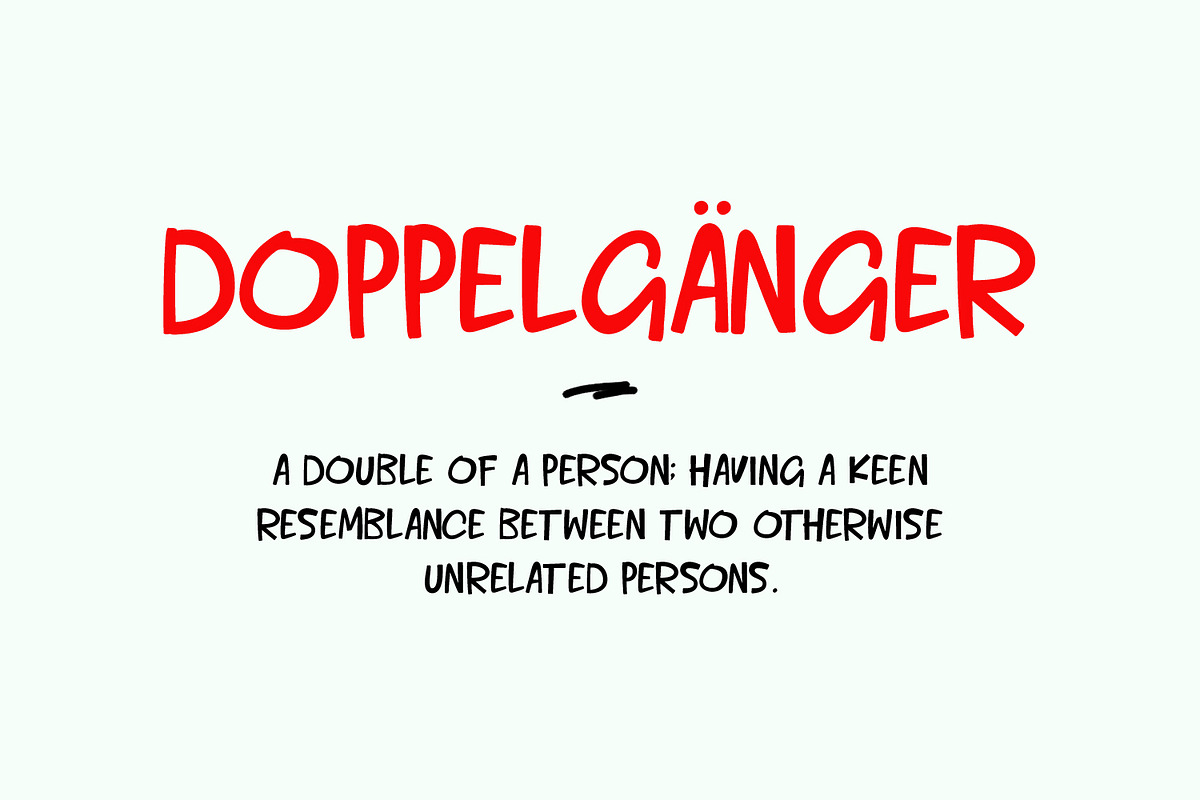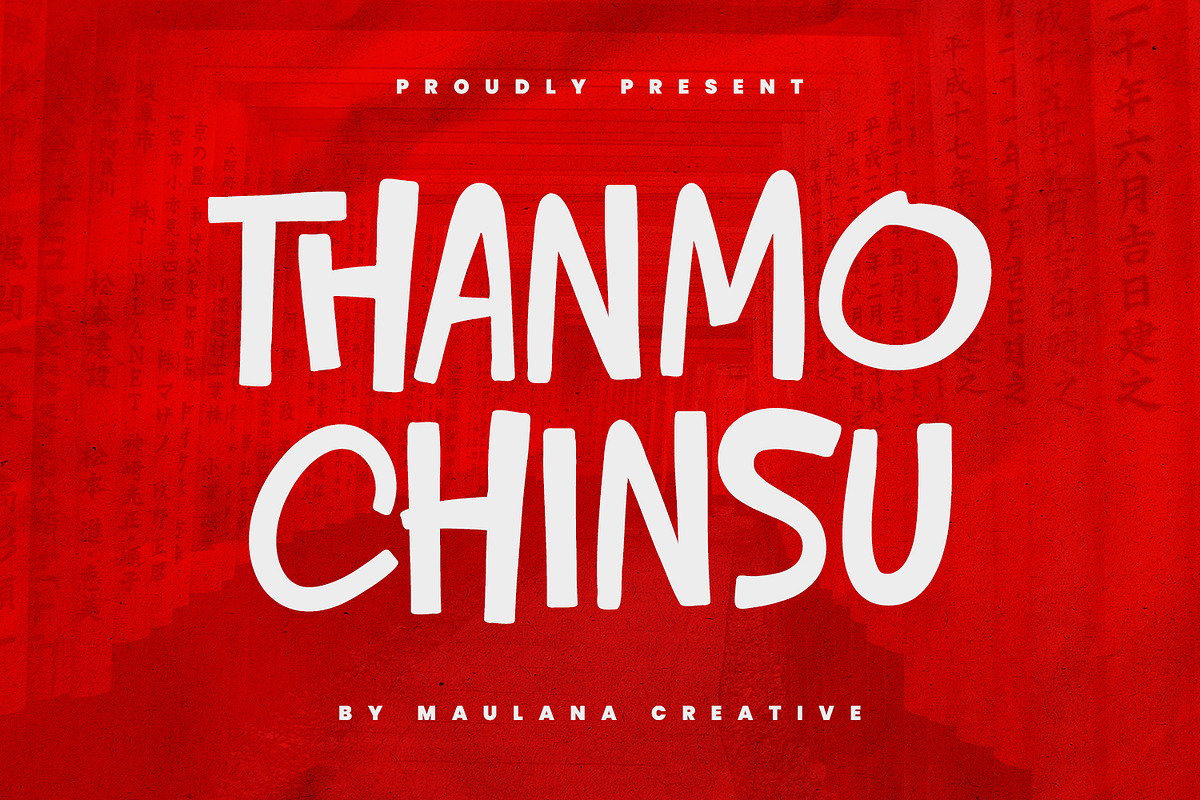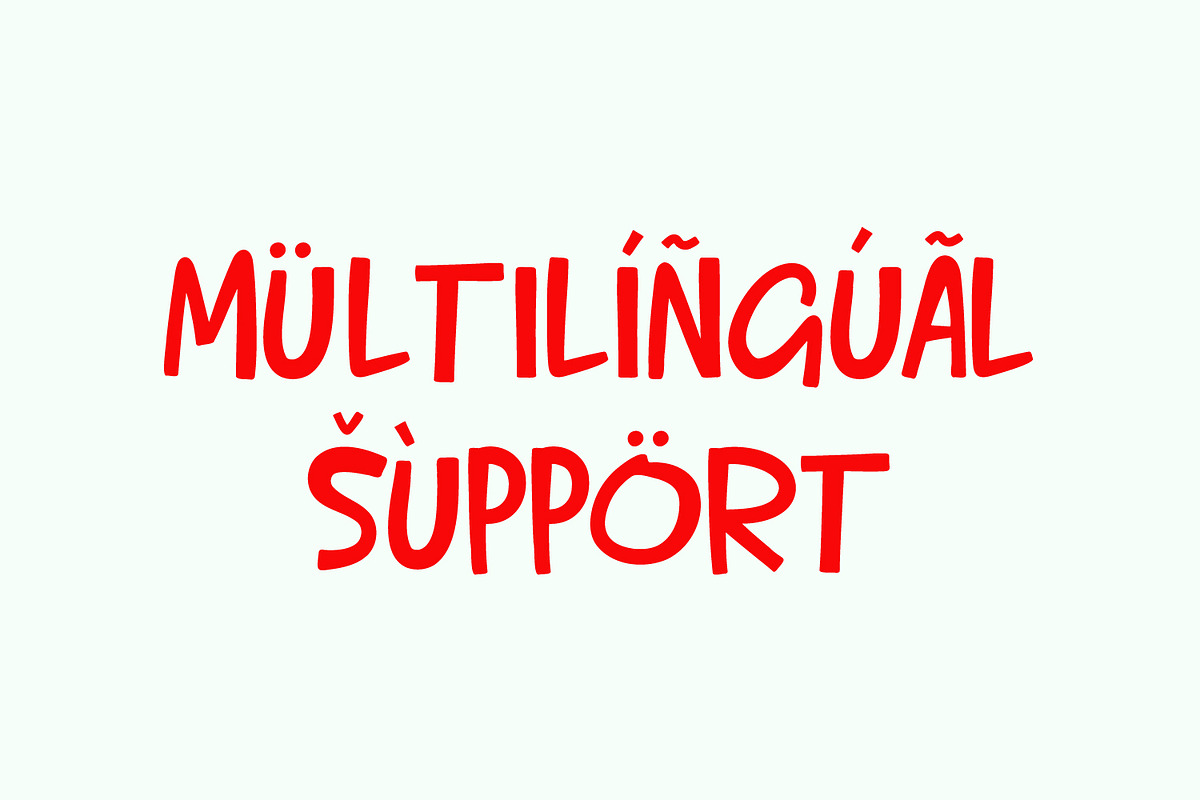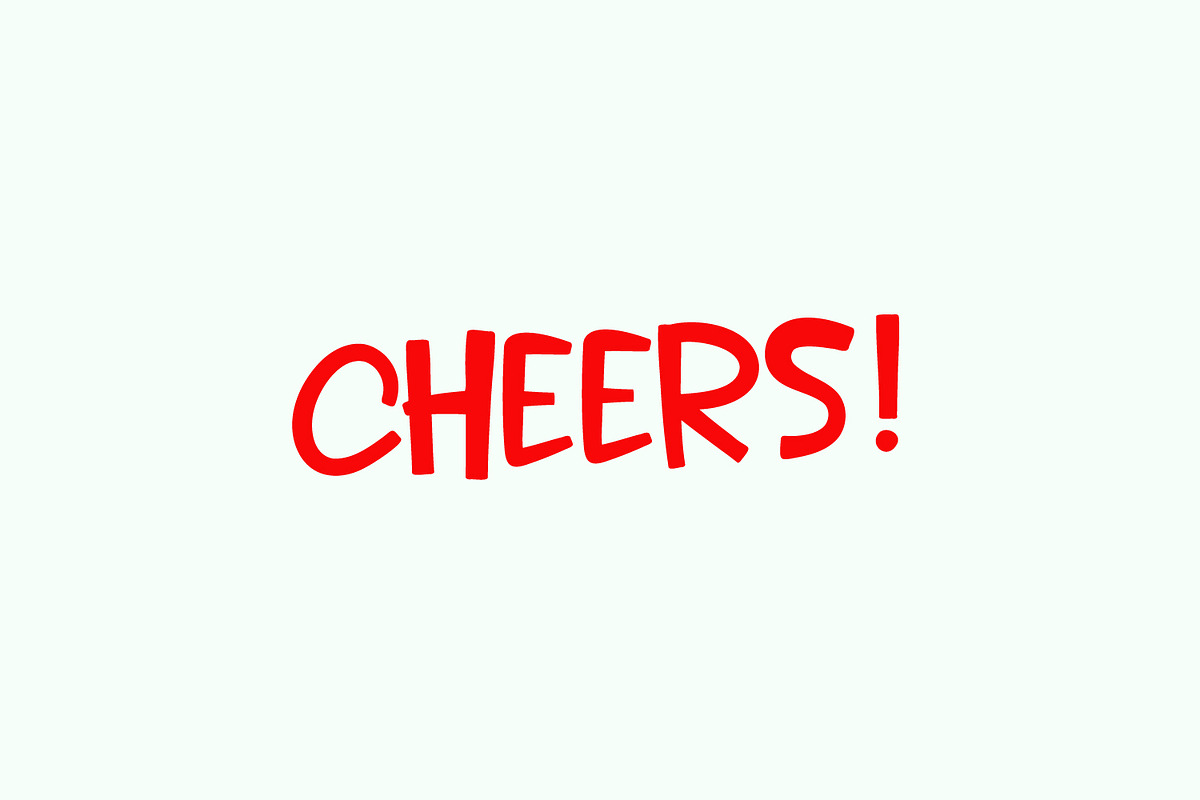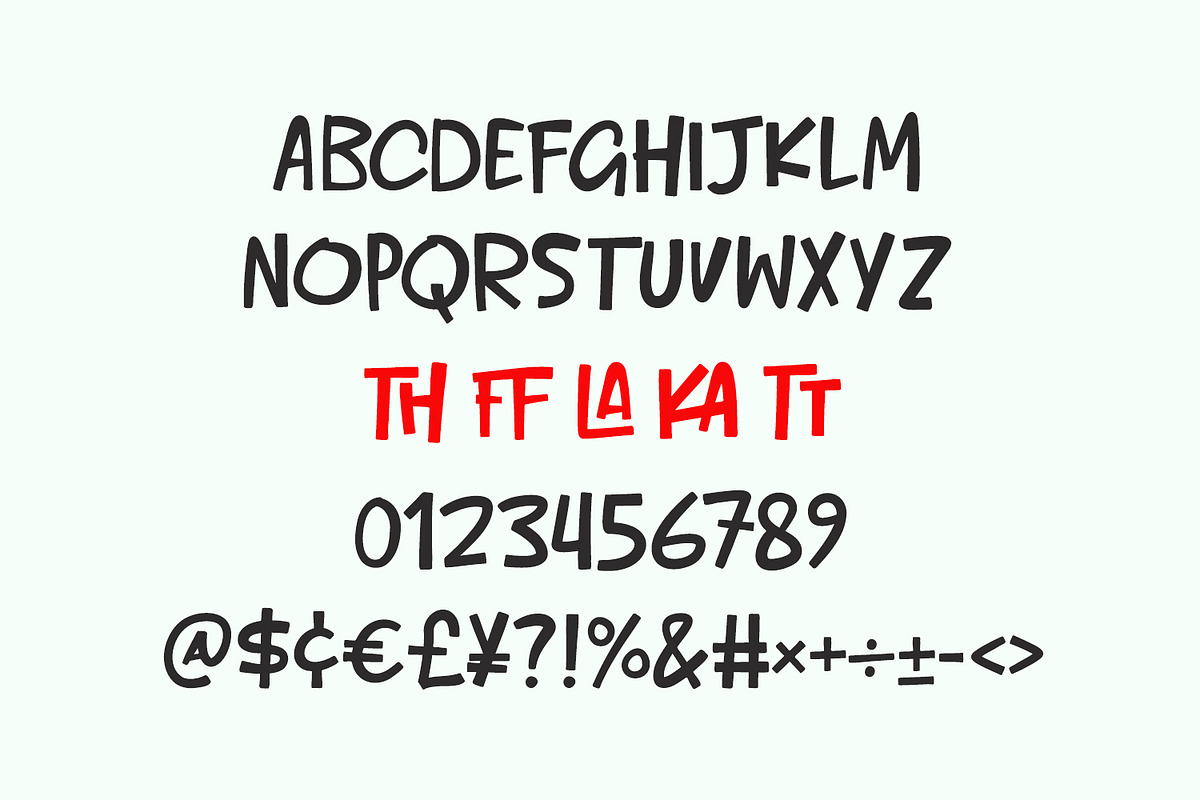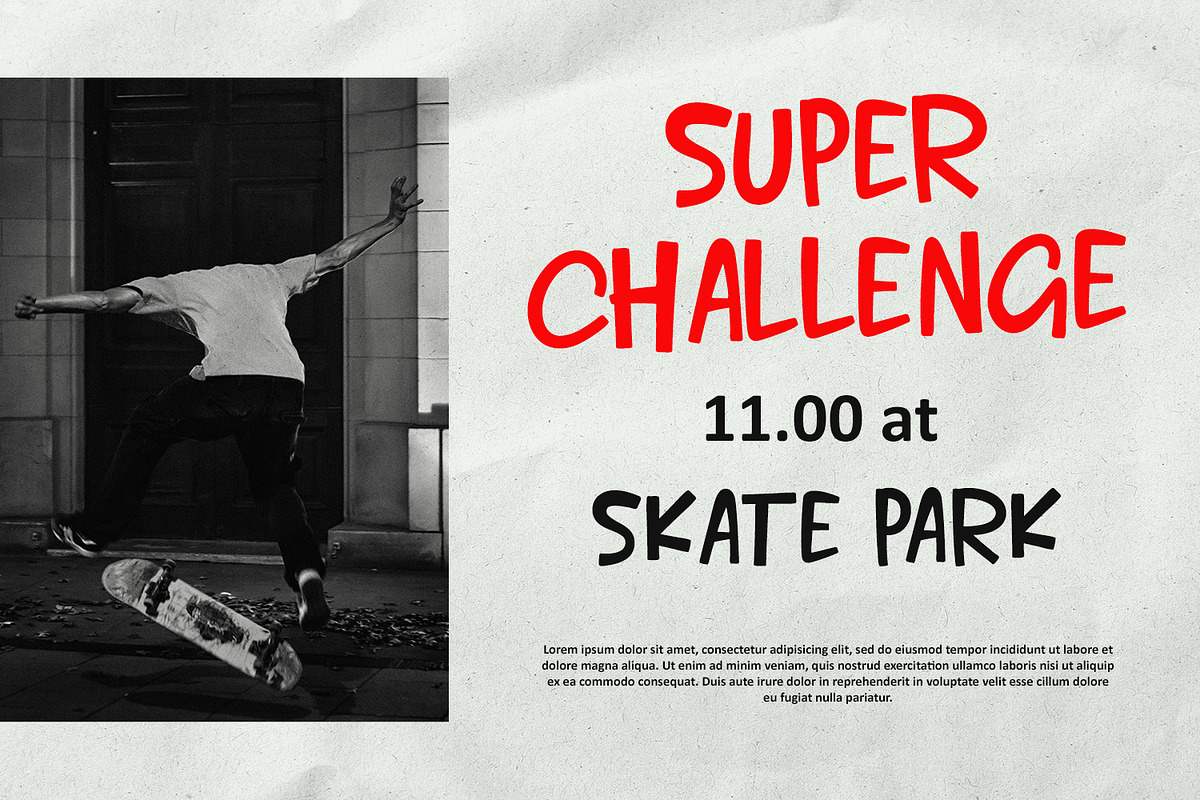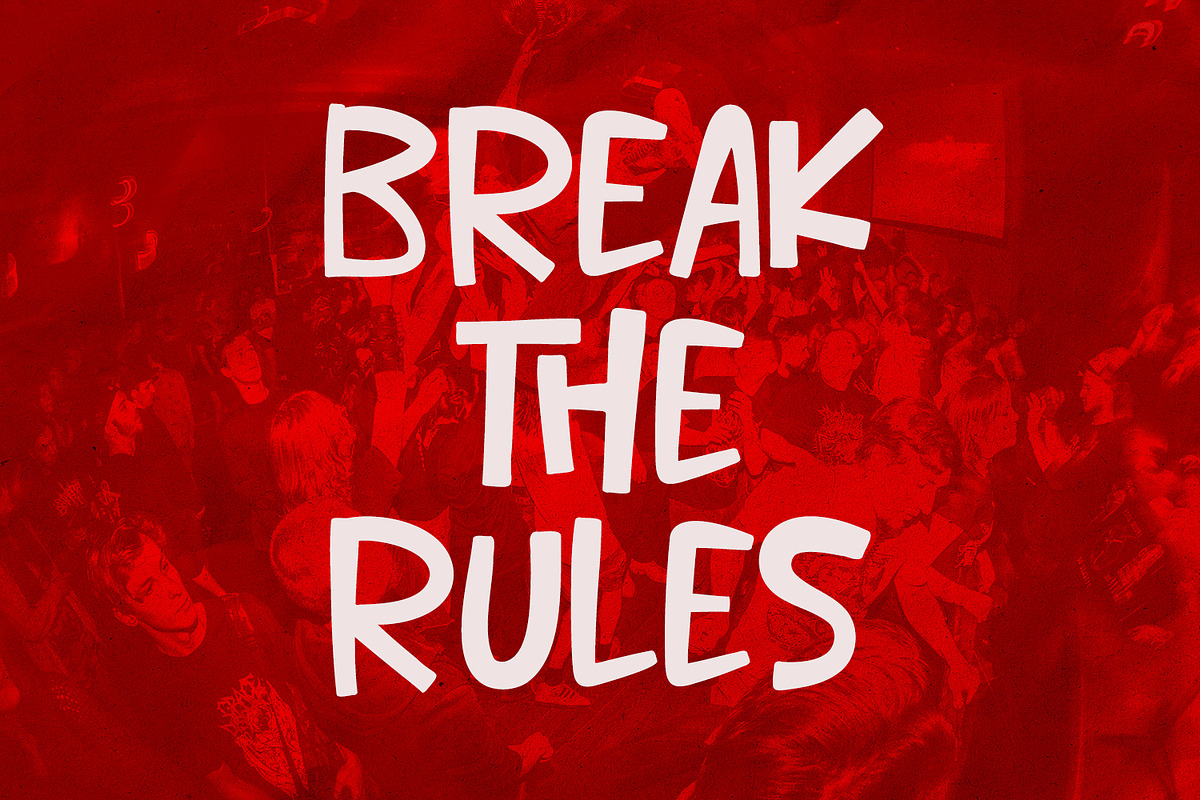
Thanmo Chinsu Cute Handwritten Displ
Thanmo Chinsu is a cute handwritten display font. With bold stroke, fun character with a bit of ligatures. To give you an extra creative work. Thanmo Chinsu font support multilingual more than 100+ language. This font is good for logo design, Social media, Movie Titles, Books Titles, a short text even a long text letter and good for your secondary text font with sans or serif. Make a stunning work with Thanmo Chinsu font.